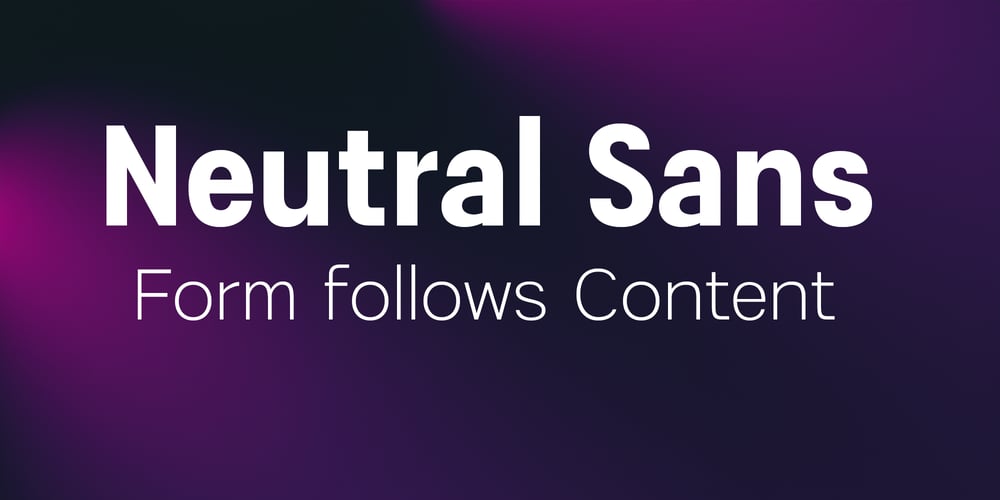
Neutral Sans Font Family was designed by Leonhard Katschner and published by Brave Type. Neutral Sans contains 13 styles and family package options. Introducing Neutral Sans, a versatile and sophisticated variable font family designed for modern typographic needs. With its clean, straight ends, Neutral Sans exudes a professional aesthetic, perfect for both digital and print media. This font offers unparalleled flexibility, allowing seamless adjustments from ultra-light to extra-bold weights. Its precise, straight ends ensure readability and a polished finish, making it ideal for both headlines and body text.Neutral Sans supports an extensive range of Latin scripts, enabling you to reach a broader audience without compromising on style. The minimalist design ensures it remains stylish and relevant across various applications, from corporate branding to creative projects. Its clean lines and balanced proportions enhance readability across all sizes and devices.Perfect for corporate branding, editorial design, web design, and advertising, Neutral Sans combines modern aesthetics with practical versatility, making it the go-to solution for sophisticated and clear typography.